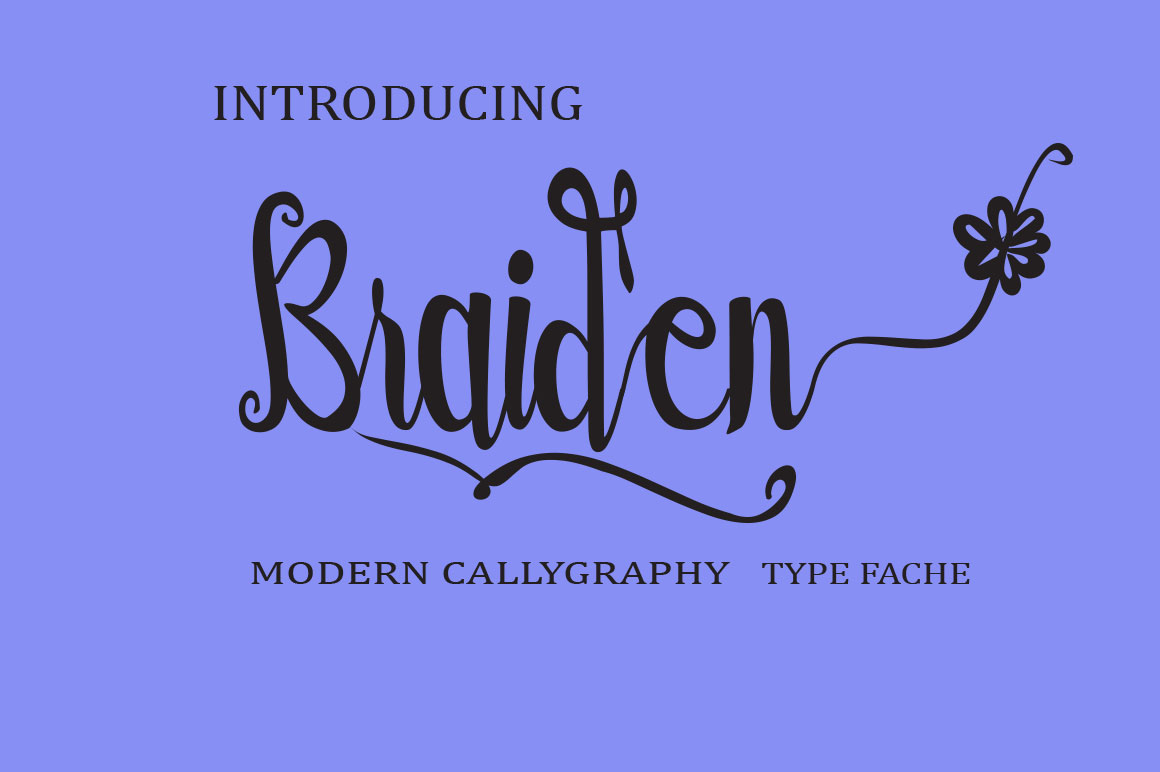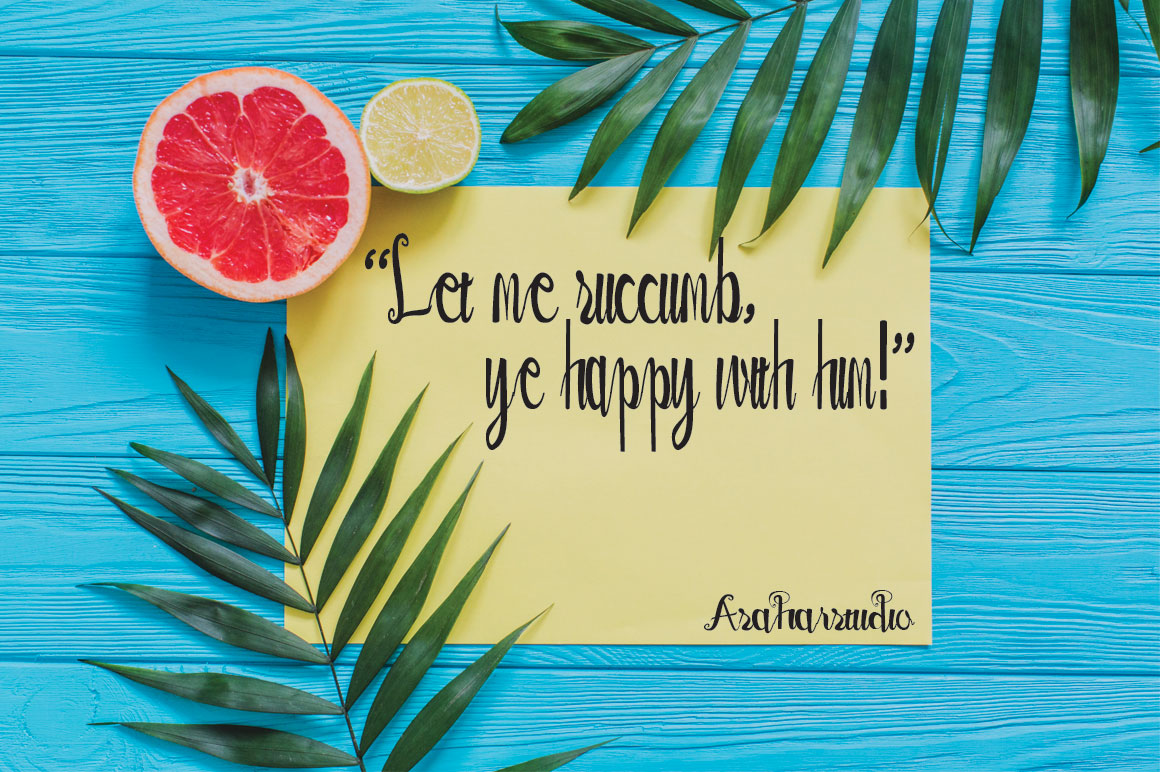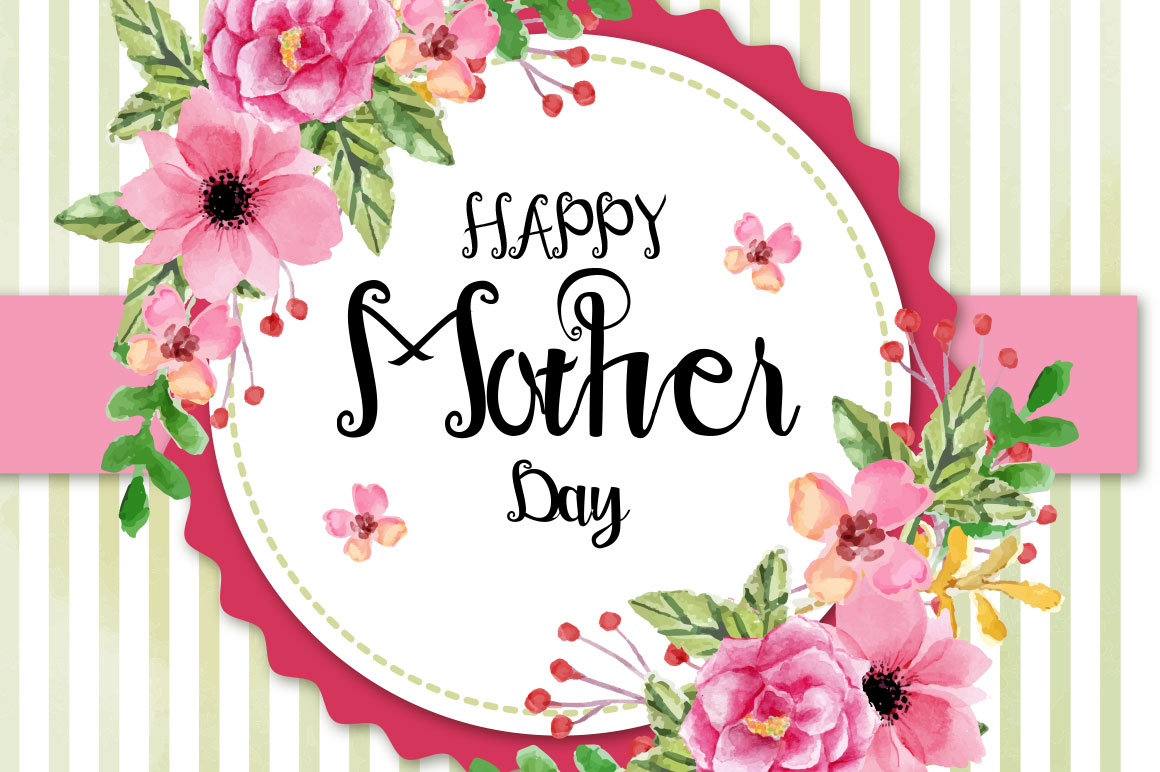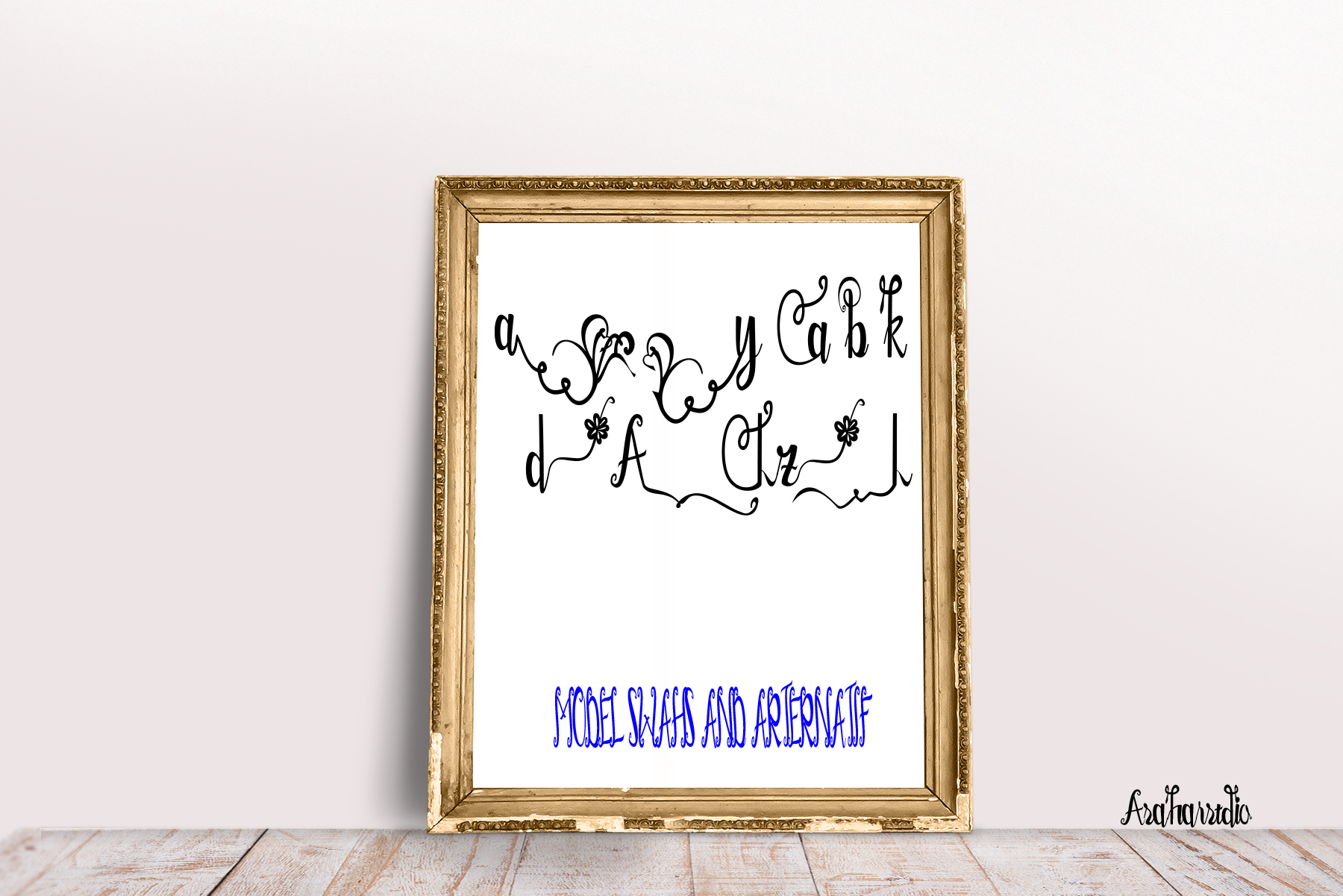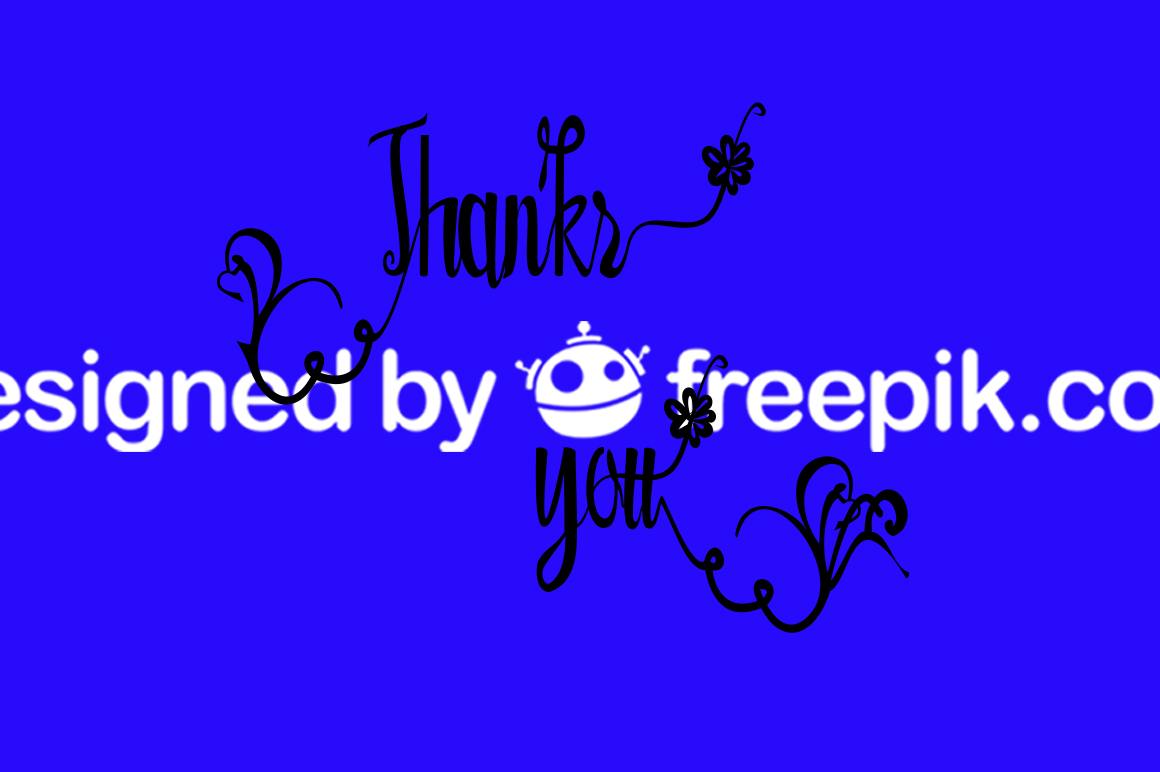
HomeScript FontsBraiden Font Script Fonts Braiden Font FacebookXPinterestWhatsApp Braiden Font Poster 2 Braiden Font Poster 3 Braiden Font Poster 4 Braiden Font Poster 5 About Braiden Font Braiden is a modern calligraphy Script font created by hand. DOWNLOAD ON CREATIVE FABRICAThis font is sold and delivered by Creative Fabrica. Font Canyon may earn a commission if you buy through this link. People also explored Victory Landera Font Handlight Font Wincent Outline Thin Font Chistmas Holiday Font Mercano Empire Condensed Hippotamia Font Hearth Font Christmas Notes Font Megalito Slab Cyrillic Font 280 0 TagsBraiden Font Previous articleLoveables FontNext articleRaihan Font LEAVE A REPLY Cancel reply Comment: Please enter your comment! Name:* Please enter your name here Email:* You have entered an incorrect email address! Please enter your email address here Website: Save my name, email, and website in this browser for the next time I comment. Personal Use Free Mandara Personal Use Free Read more about this font Aragon Personal Use Free Read more about this font Adeline Personal Use Free Read more about this font Hunters Personal Use Free Read more about this font BLOG Free vs Paid Fonts: Why Investing in Premium Fonts Is Worth It Free vs Paid Fonts: Why Premium Fonts Are Worth It in 2025 The debate of free vs paid fonts continues in the design world. While... Best Fonts for YouTube Videos: Make Your Thumbnails Stand Out To increase your work productivity, choose the most readable fonts. How to Cut Any Font on Cricut: Convert a Font to SVG (Free)